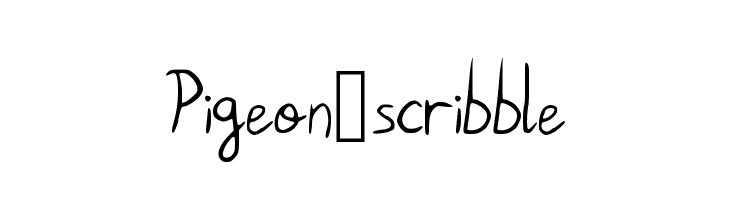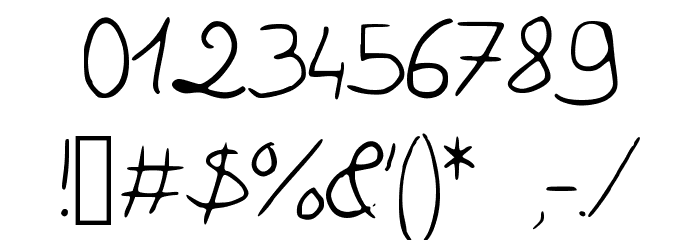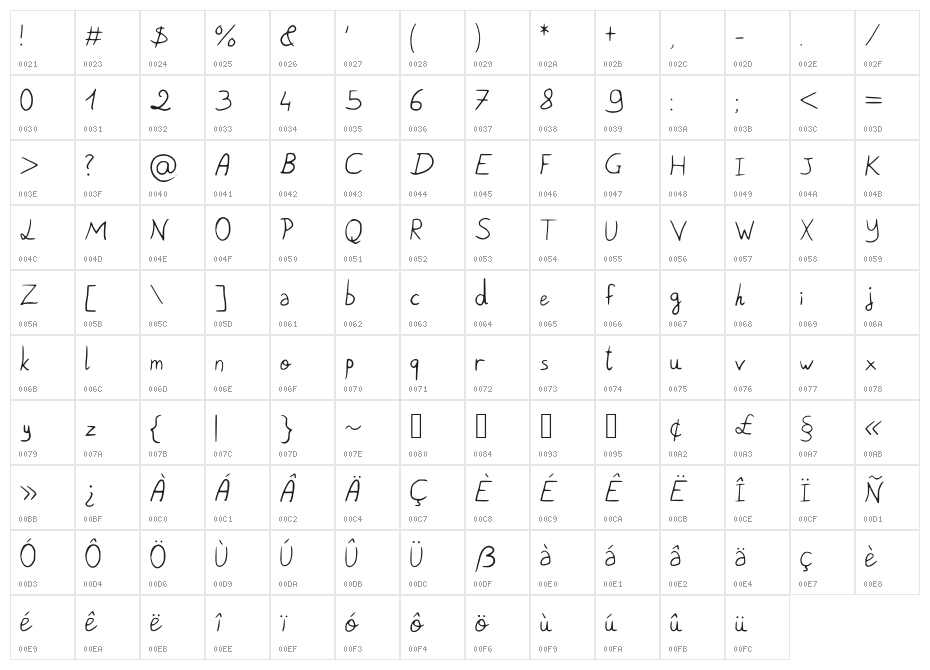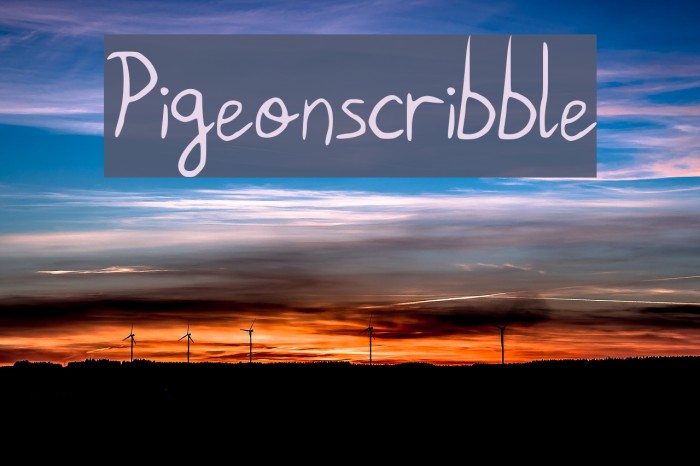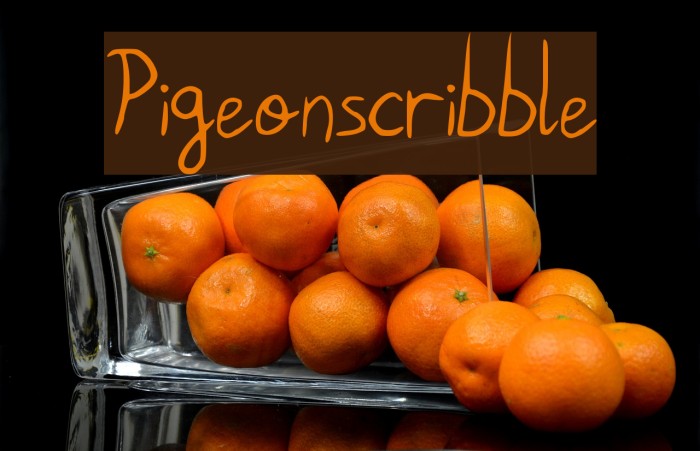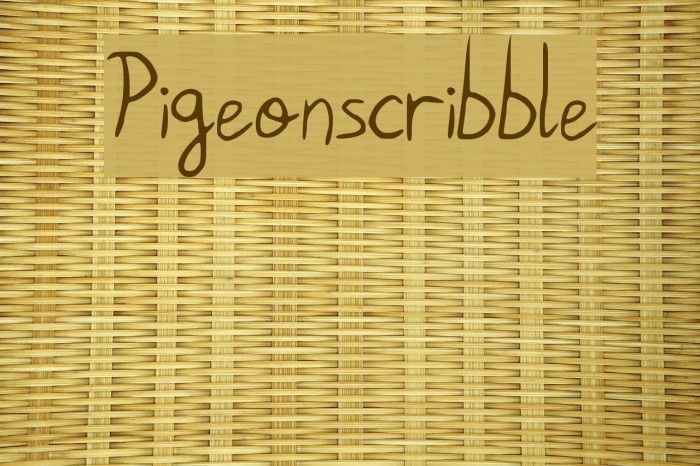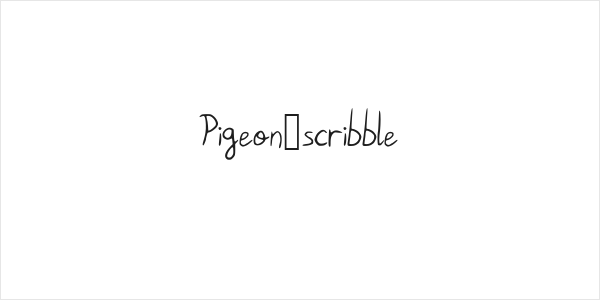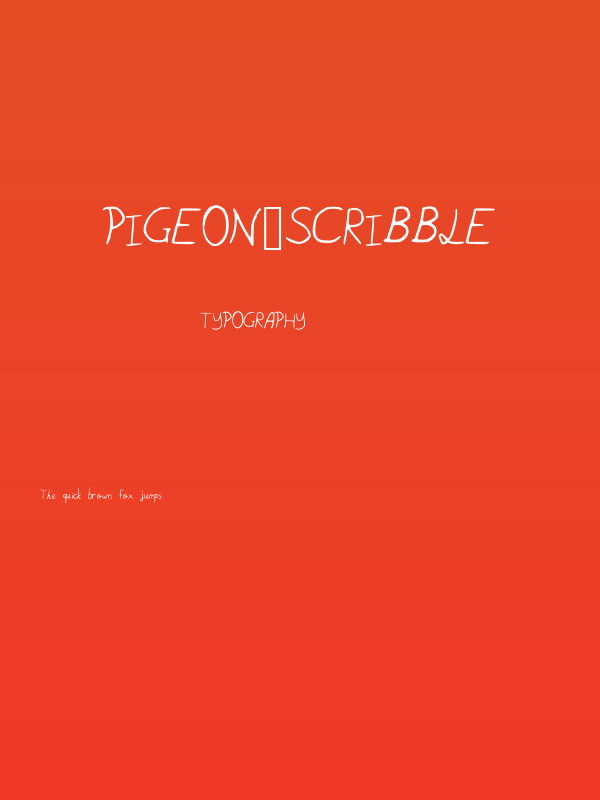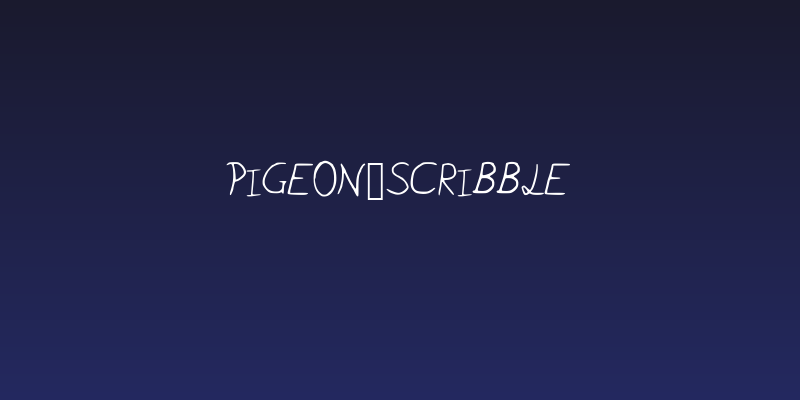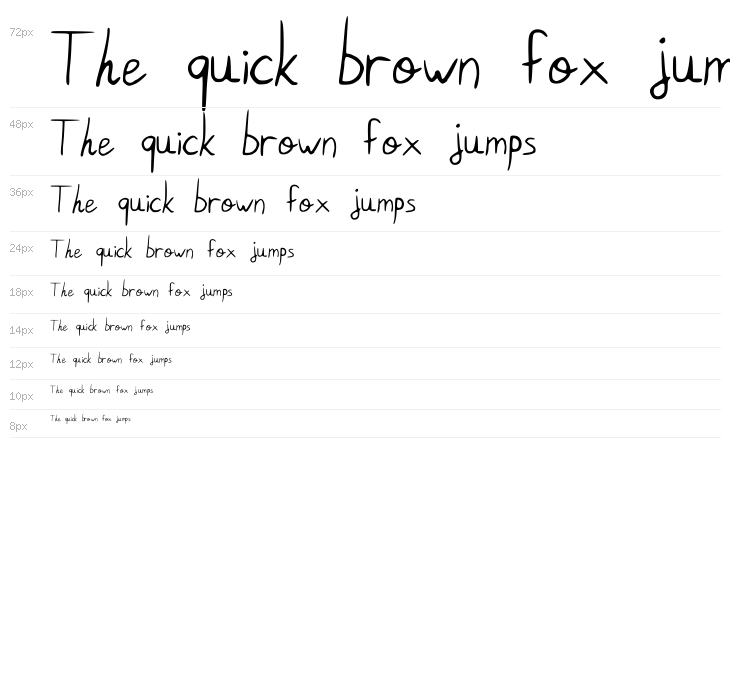
Pigeon_scribble Font
Pigeon_scribble Description
This font exudes a playful and informal vibe, characterized by its handwritten style that mimics casual penmanship. The letters are slightly irregular, adding to the charm and authenticity of the handwritten look. The strokes are smooth and flowing, with a slight tilt that gives the font a dynamic feel. The uppercase letters are bold and prominent, while the lowercase letters maintain a consistent flow, making it easy to read. The numerals and special characters are crafted with the same playful style, ensuring a cohesive look across all text elements.
| Use Case | Headlines, Informal text, Personal projects |
| Proposed Projects | Ideal for greeting cards, children's books, personal blogs, and informal invitations. |